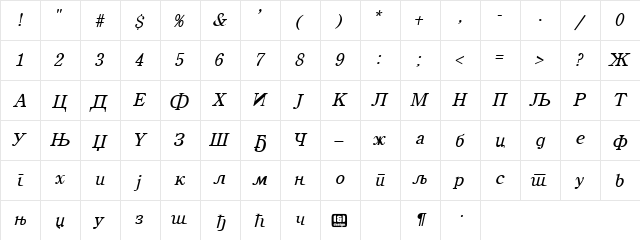
Century Cirilica Italic
Design Context for Century Cirilica Typeface
Century Cirilica is a composed and adaptable typeface that performs quietly and consistently across a wide range of design contexts. Its italic angle brings a sense of urgency and motion to the letterforms.
Pro Tip: Try Century Cirilica for annotation and caption copy alongside an upright companion — the contrast in angle creates a dynamic but ordered typographic system.